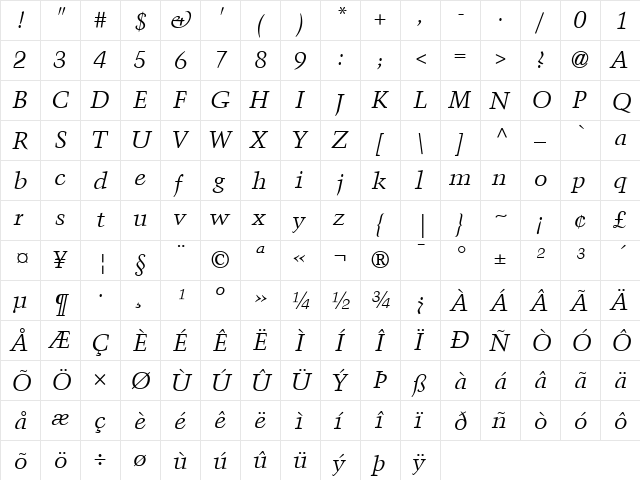
Trump Mediaeval Regular
Design Context for Trump Mediaeval Typeface
Trump Mediaeval takes a measured approach to typography — its balanced proportions and neutral character make it a reliable workhorse for both digital and print work.